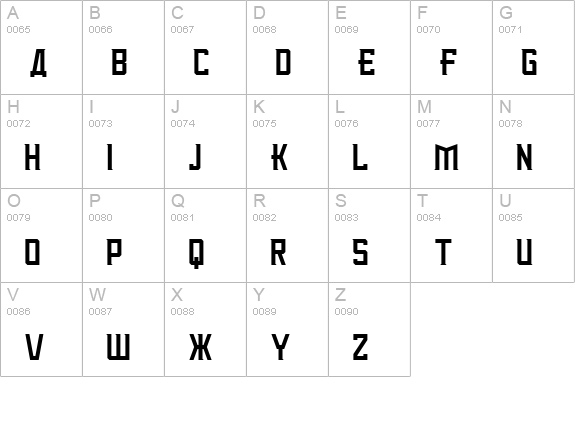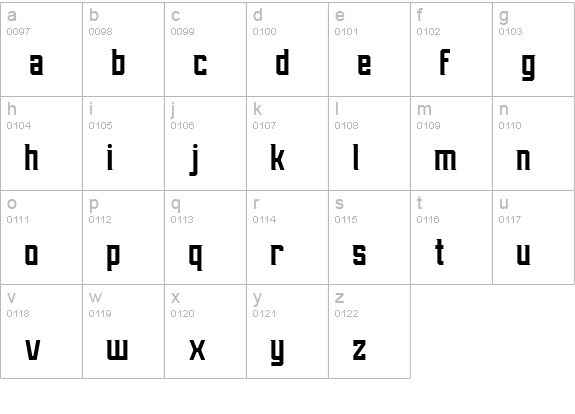
Aleksei-Solid Font Details
Aleksei-Solid font is a stunning display typeface that exudes strength and modernity. Its bold and geometric design makes it perfect for creating impactful headlines, logos, and branding materials. The sleek lines and sharp edges of Aleksei-Solid font give it a contemporary and edgy look that is sure to grab attention. What makes Aleksei-Solid font even more appealing is that it is free to download at FontsMarket.com. This means you can easily access this versatile typeface and use it in your design projects without any cost. Whether you're working on a poster, website, or any other creative project, Aleksei-Solid font will add a touch of sophistication and style. Get your hands on this fantastic font today and elevate your designs to the next level.